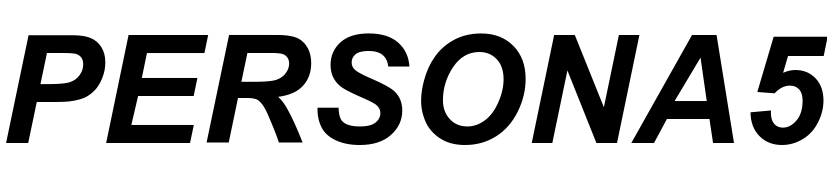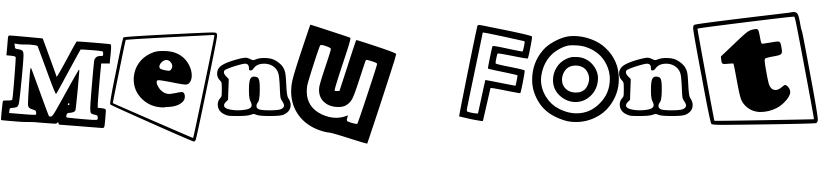
Persona 5 Font
GamePersona 5 is a role-playing video game by Atlus, where players control a high school student who uses manifestations called Personas to combat enemies. The game blends turn-based combat, dungeon exploration, and relationship-building in a stylish, noir-themed world.
The "PERSONA5" part of the cover looks similar to Arial Italic Bold. The "P5" part of the cover most likely uses Markin LT Ultra Bold.
The font used in the menu was replicated as Personal 5 Menu Font Prototype by KanjiPlaysInc on Reddit.